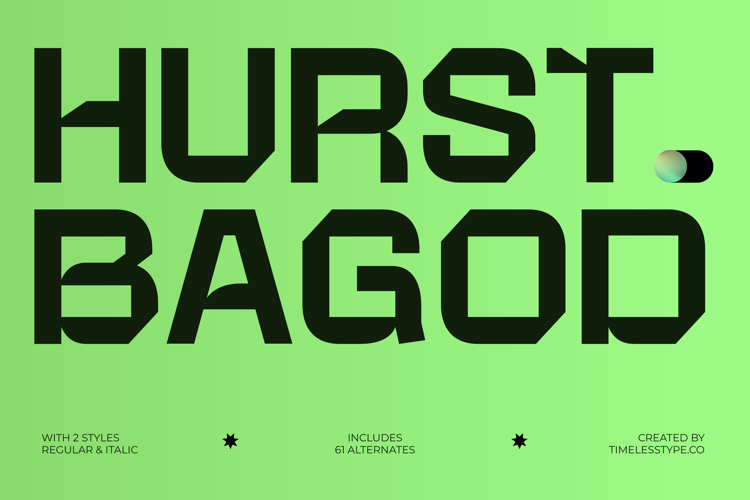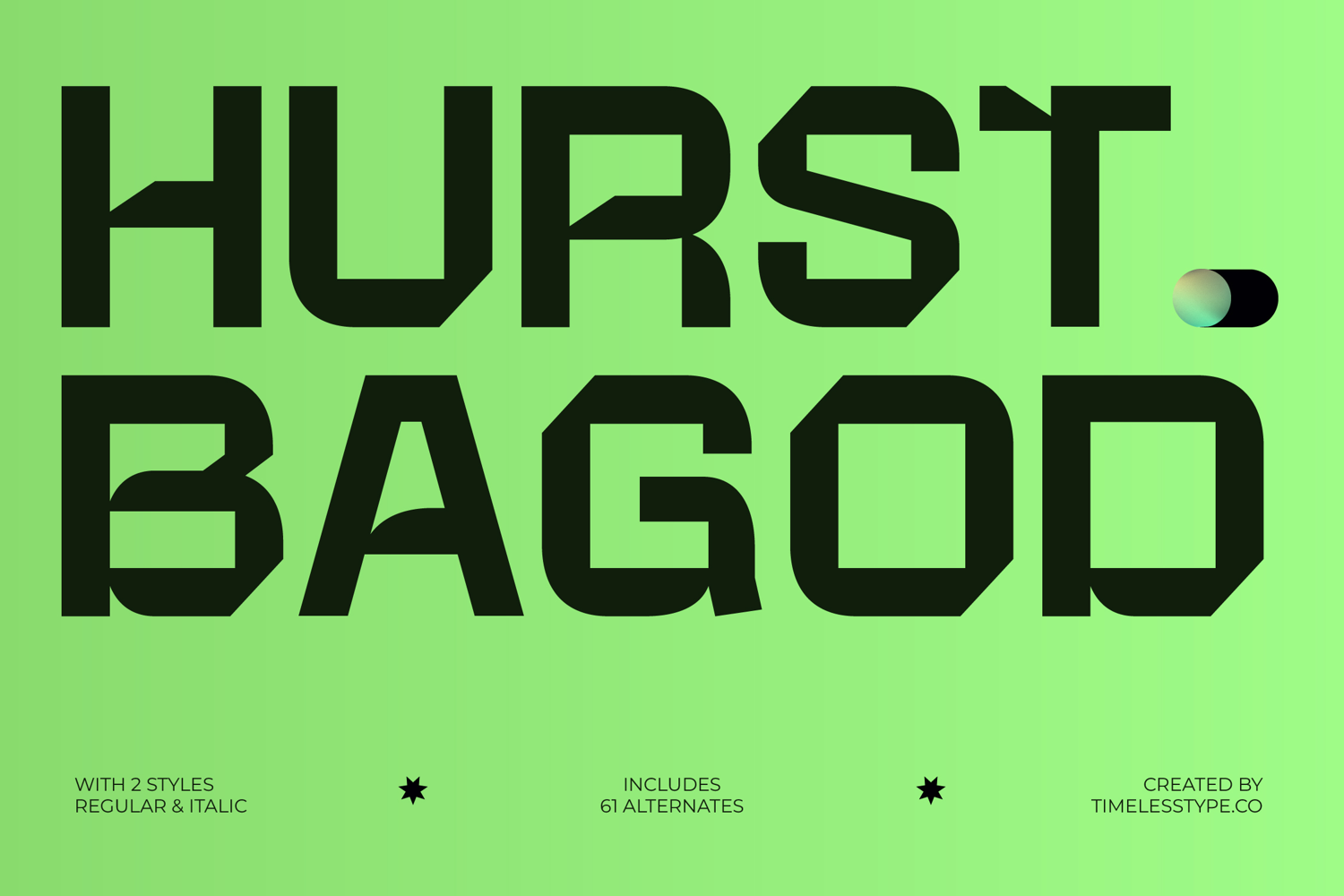
Hurst Bagod - Futuristic Sans Serif Font
The Hurst Bagod Typeface is a bold modern sans serif font that merges futuristic aesthetics with geometric precision. Featuring 2 styles (regular & italic) and 61 alternates, this font provides designers with flexibility to create powerful, sharp, and dynamic typography. Its angular cuts, rigid structure, and commanding presence make it an ideal choice for projects that demand a sense of strength, modernity, and innovation. With its futuristic appeal, Hurst Bagod is perfectly suited for high-impact visuals across both print and digital media.
This font is especially effective for branding and identity design, particularly for technology companies, sports industries, gaming, automotive, and lifestyle brands. Its strong geometric build communicates authority and confidence, ensuring logos and wordmarks look bold, memorable, and cutting-edge.
In editorial and promotional contexts, Hurst Bagod enhances magazine layouts, posters, and brochures with its futuristic, industrial vibe. Designers can use alternates to craft unique layouts that stand out in both minimalist and complex compositions.